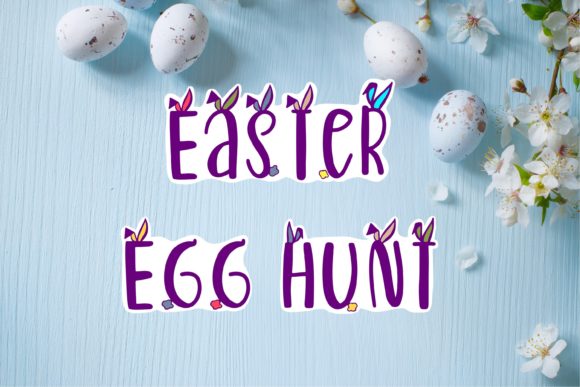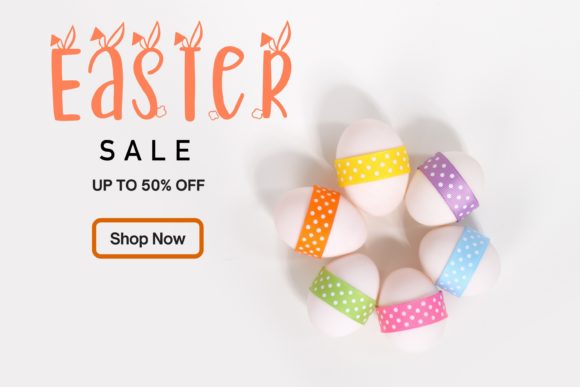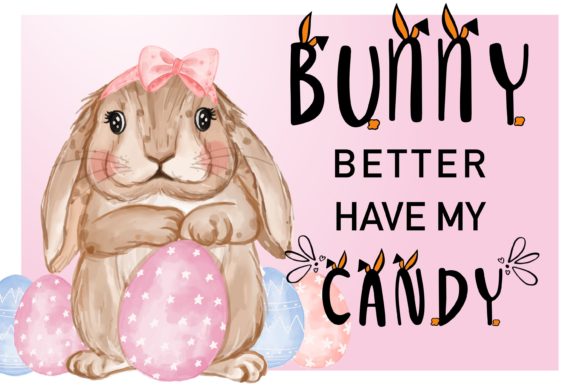
The Joy of Easter Font: A Playful Decorative Font for Creative Projects
I still remember the time I was working on a children’s activity book, and I was struggling to find the perfect font to match the playful and cheerful vibe of the illustrations. The project was for a client’s kids’ party, and I wanted to make sure everything was perfect. That’s when I stumbled upon the Easter font, and it instantly brought a smile to my face. Its cute and playful design embodied the joy and authenticity I was looking for, making it the perfect choice for the project.
An Honest Review of Easter Font
- ✨ The Easter font is incredibly versatile and can be used for a wide range of creative projects, from children’s activity books to school projects and even Easter-themed crafts.
- ✅ Its playful and decorative design makes it perfect for adding a touch of whimsy to any project.
- 🎉 The font comes with a range of OpenType features, glyphs, and stylistic alternates, making it easy to customize and adapt to different design needs.
While the Easter font is an excellent choice for many projects, there are a few things to keep in mind:
- ⚠️ The font may not be suitable for formal or professional projects, as its playful design may not convey the right tone.
- 🤔 Some users may find that the font’s decorative elements can be overwhelming or distracting if not used carefully.
The Backstory of Easter Font
The Easter font was designed by a team of creative designers who wanted to create a font that would bring joy and authenticity to children’s projects and crafts. The designers were inspired by the playful and whimsical world of Easter, with its bright colors, cute characters, and festive atmosphere. They aimed to create a font that would capture the essence of Easter and make it accessible to designers and crafters of all levels.
| What is the Easter font? | The Easter font is a cute and playful decorative font that’s perfect for children’s projects and crafts. |